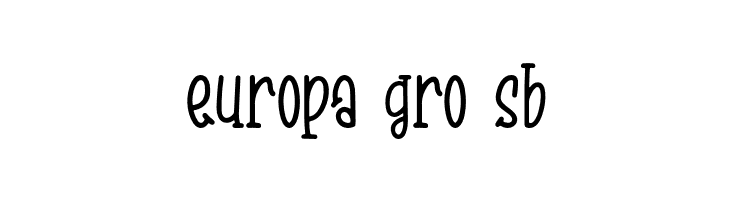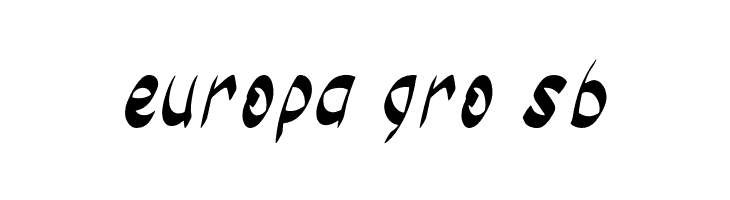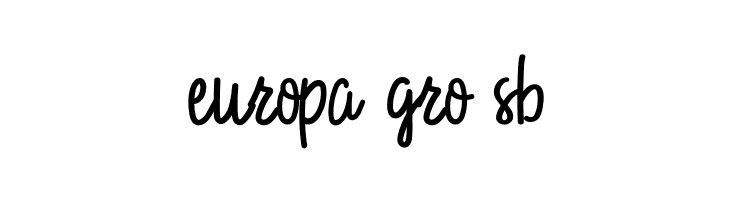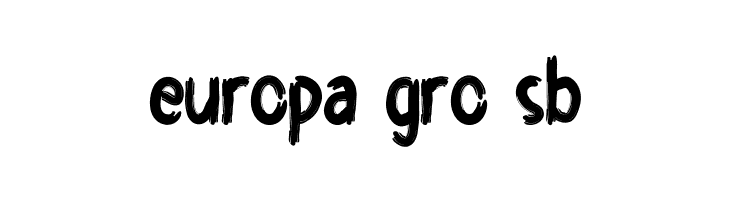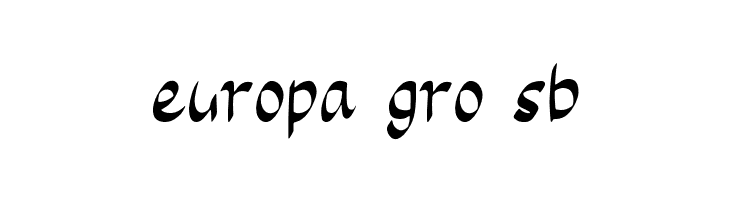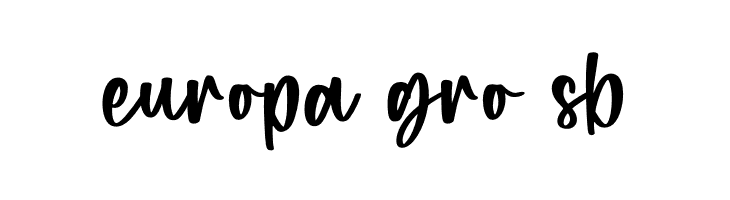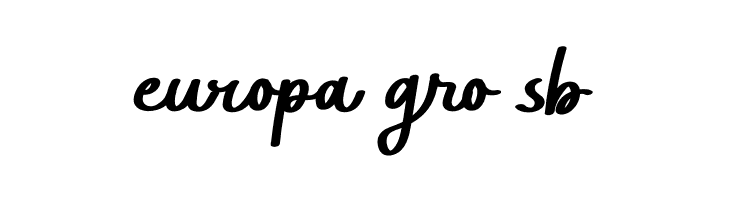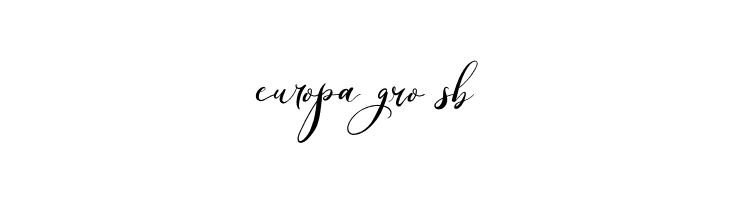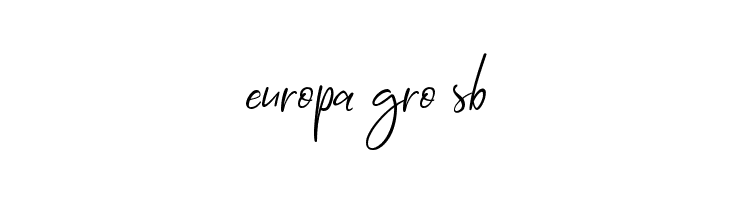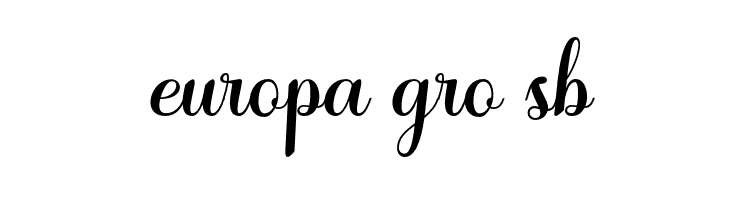
• Sunday Special
A playful, hand-drawn font with tall, narrow characters and rounded edges.
• Monday Special
A dynamic, cursive font with expressive, fluid strokes.
• Love Today
A playful, handwritten font with smooth, flowing lines and a casual style.
• Halloween Day
A bold, brush-style font with an energetic and artistic flair.
• Joy Day
A dynamic and flowing script font with elegant curves and smooth transitions.
• Monday Cookies
A bold, handwritten script font with a playful and dynamic style.
• Sunday in Adelaide
A playful and elegant script font with a handwritten feel.
• Romantic Sunday
An elegant script font with flowing, cursive letters and a romantic flair.
• Lemonday
A lively handwritten font with fluid, dynamic strokes and a playful style.
• Winterday
An elegant script font with intricate swirls and high contrast, perfect for decorative use.